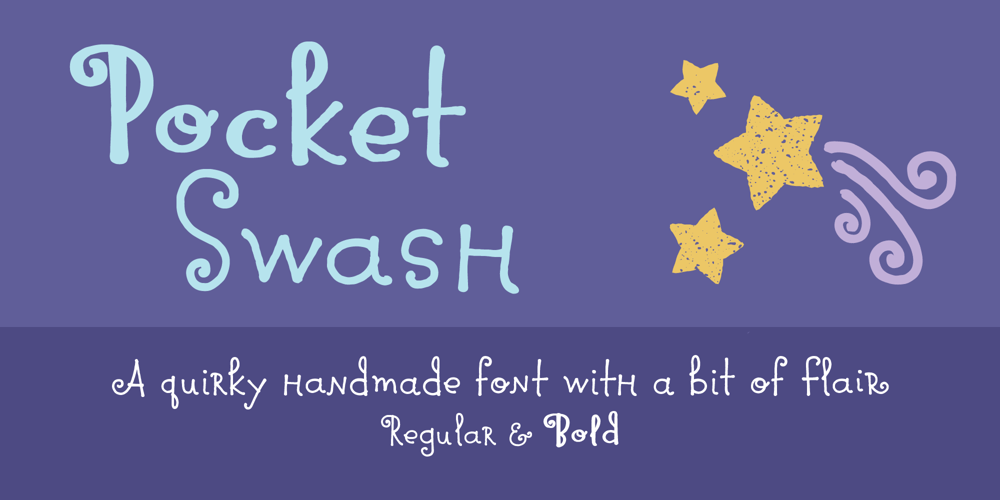
Pocket Swash Px Font Family was designed by Kemie Guaida Ortega and published by Letradora. Pocket Swash Px contains 2 styles and family package options. Check out other members of the Pocket family: Pocket and Pocket Serif This hand drawn font has a subtle rough texture, and lots of alternate swash characters to start and end words. It is perfect to give an extravagant but whimsical look to your projects. It has support for most western and central European languages, and has alternates for most letterforms accessible through Opentype features, allowing for variations that make it look authentically hand-drawn. It also has extra ligatures, swashes, and catchwords.